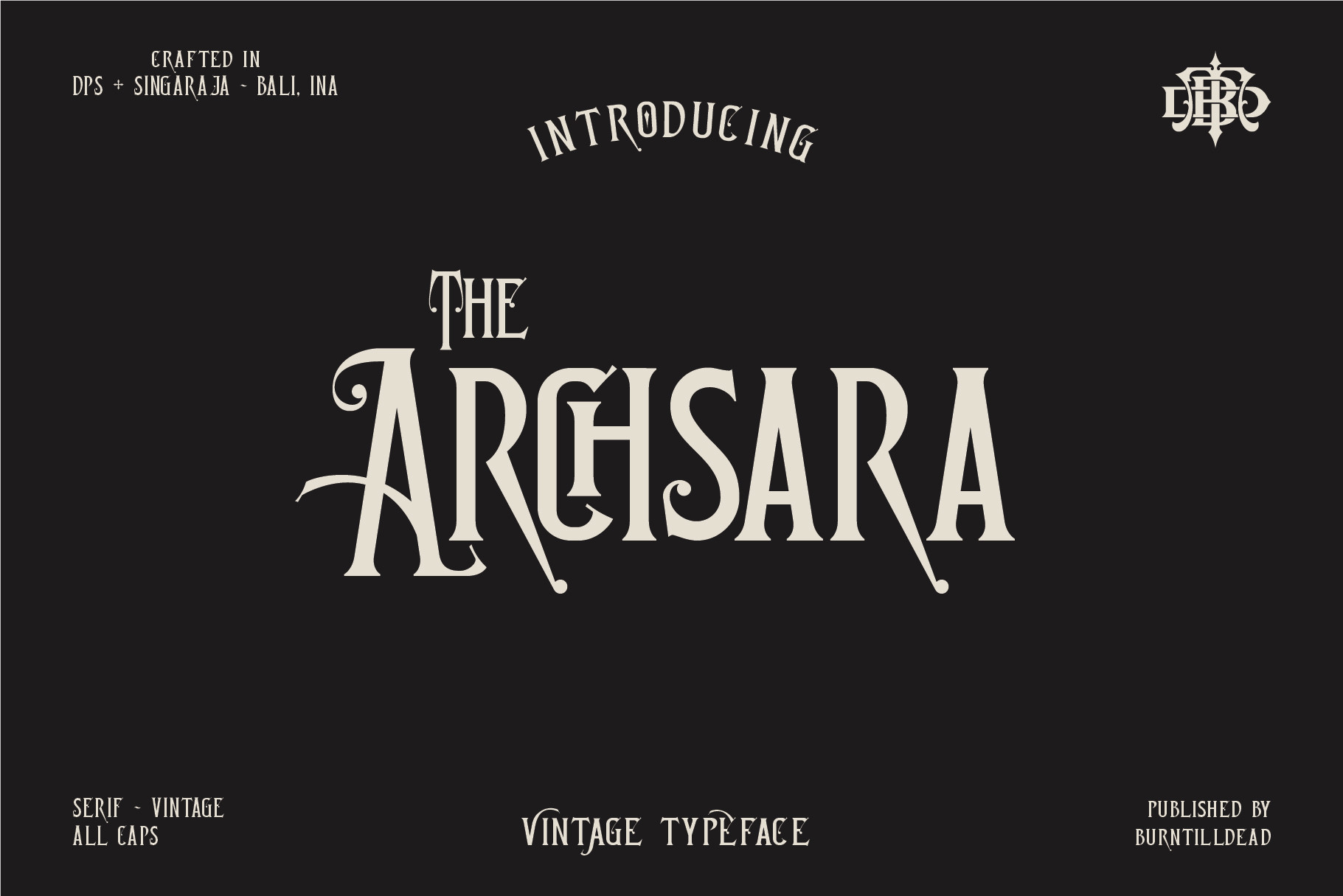
Archsara is a vintage blackletter font inspired by hanging signs from the late 9th century. This font is made to add a jaw-dropping effect to your projects.
Font Name: Achsara Font
Author: Burntilldead